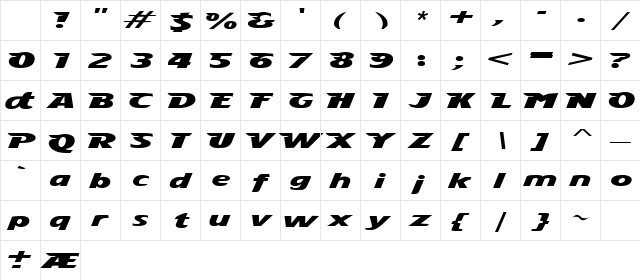
Complete StingRay Extrabold glyph index. Displaying only characters natively supported by StingRay Extrabold font.
StingRay is a composed and adaptable typeface that performs quietly and consistently across a wide range of design contexts. Its bold stroke weight gives it real presence on the page.